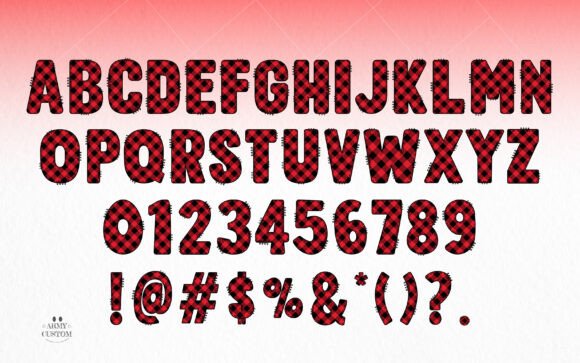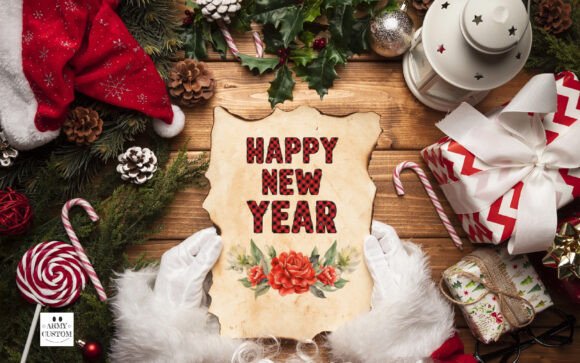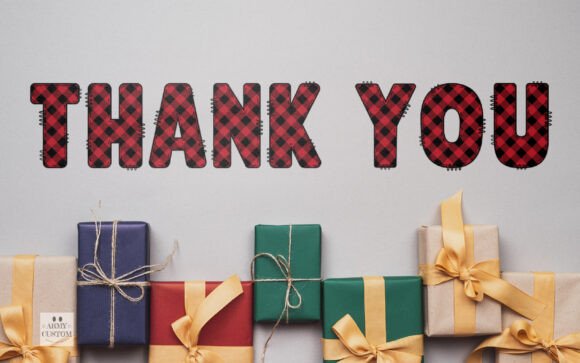
Get Ready to Deck the Halls with the Buffalo Plaid Army Font
It’s that time of the year when we break out the cozy sweaters, gather around the fireplace, and indulge in all things festive. As a designer, you’re probably no stranger to the joy of crafting holiday-themed projects that spread cheer and warmth. And what’s more festive than a classic plaid pattern? Enter the Buffalo Plaid Army Font, a delightful typeface that seamlessly weaves traditional charm with an engaging aesthetic, perfectly capturing the essence of a log cabin Christmas.
This font is a must-have for designers looking to add a quintessential holiday touch to their projects. With its rich red plaid pattern and rustic appeal, the Buffalo Plaid Army Font is sure to bring a smile to your clients’ faces and a dash of holiday magic to their designs. Whether you’re working on a Christmas card, a gift tag, or a holiday-themed website, this font is the perfect addition to your design toolkit.
Buffalo Plaid Army Font Key Features
- Font Family: A unique, bold font with a distinctive plaid pattern, reminiscent of classic lumberjack attire.
- Unique Characteristics: The font’s distinctive plaid pattern creates a bold, eye-catching effect, making it ideal for headings and titles.
- Legibility: Despite its bold appearance, the font remains highly legible, even at smaller sizes, ensuring that the message is conveyed clearly.
- Customization: The font is fully editable, allowing users to customize the plaid pattern, colors, and other design elements to suit their needs.
Buffalo Plaid Army Font Review
I’ve had the chance to work with the Buffalo Plaid Army Font, and I must say it’s a unique addition to any design project. Here’s what I think works well:
- ✨ The font’s rustic, vintage feel is perfect for creating a cozy and welcoming atmosphere in designs.
- ✨ The bold, chunky style of the font makes it ideal for headings and titles, adding a touch of ruggedness to any layout.
- ✨ The font’s versatility allows it to be used in a wide range of designs, from outdoor and country-inspired themes to modern and edgy styles.
However, I do have some reservations:
- ⚠️ The font’s bold style can be overwhelming in some cases, especially when used for large blocks of text.
- ⚠️ The font’s limited character set may make it difficult to use for complex designs or those requiring a wide range of special characters.
Overall, the Buffalo Plaid Army Font is a great choice for designers looking to add a touch of rugged charm to their projects. While it may not be suitable for every design, its unique style and versatility make it a valuable addition to any font collection.
The Buffalo Plaid Army Font is a great choice for creating bold and eye-catching headings and titles in PowerPoint or Word.
The Buffalo Plaid Army Font is perfect for:
- Creative and artistic designs.
- Outdoor and sports-related designs.
- Branding and logo designs.
Remember to use the font in moderation and balance it with other design elements to avoid